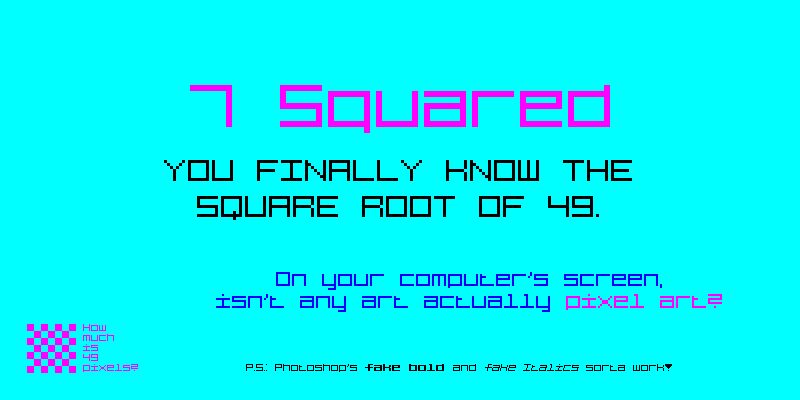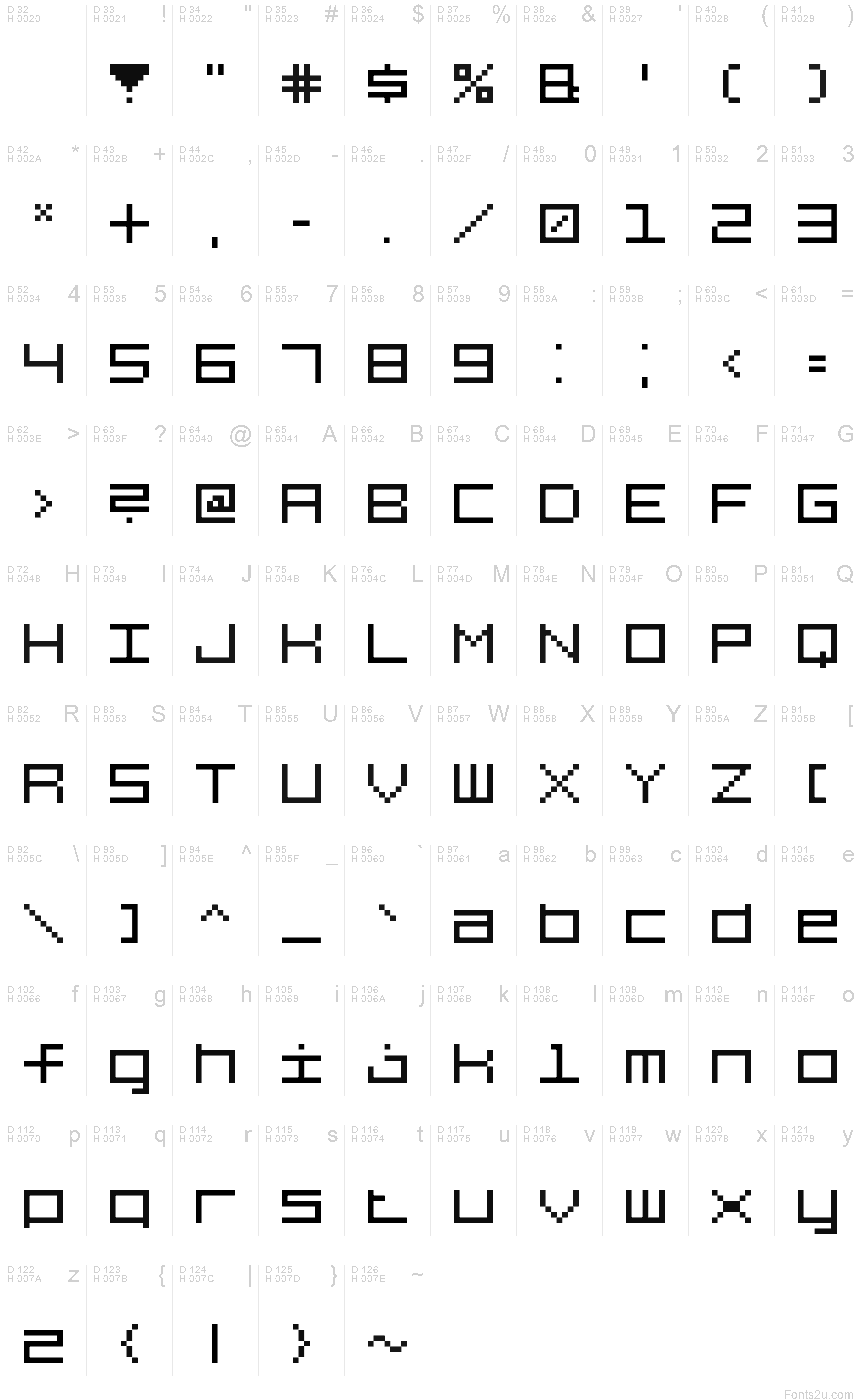
7 Squared Regular
...how much is 7 squared?
7 Squared is a retro bitmap pixel font, with most characters based on a 7x7 square of pixels. It features both lowercase and uppercase letters and has all the special characters in the Google Fonts standard, including some of the extended Latin letters, check out the character chart!
Note: The font is made of pixels, which may get messed up in low resolutions or pixel art. For correct display, you should use text sizes divisible by 9 (the fonts height is actually 9p, not 7, due to diacritics), as 9, 18, 27, 36... you get it.